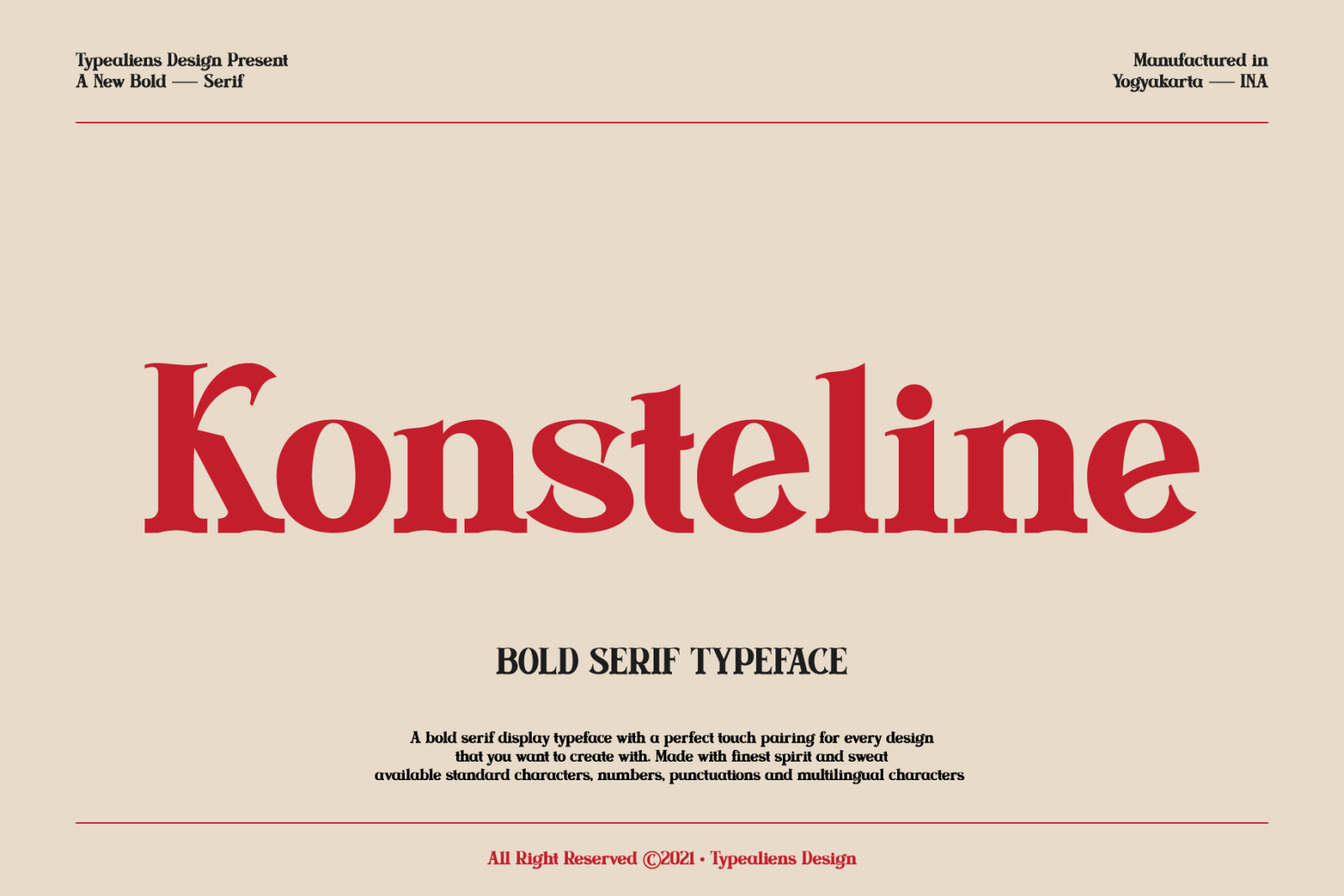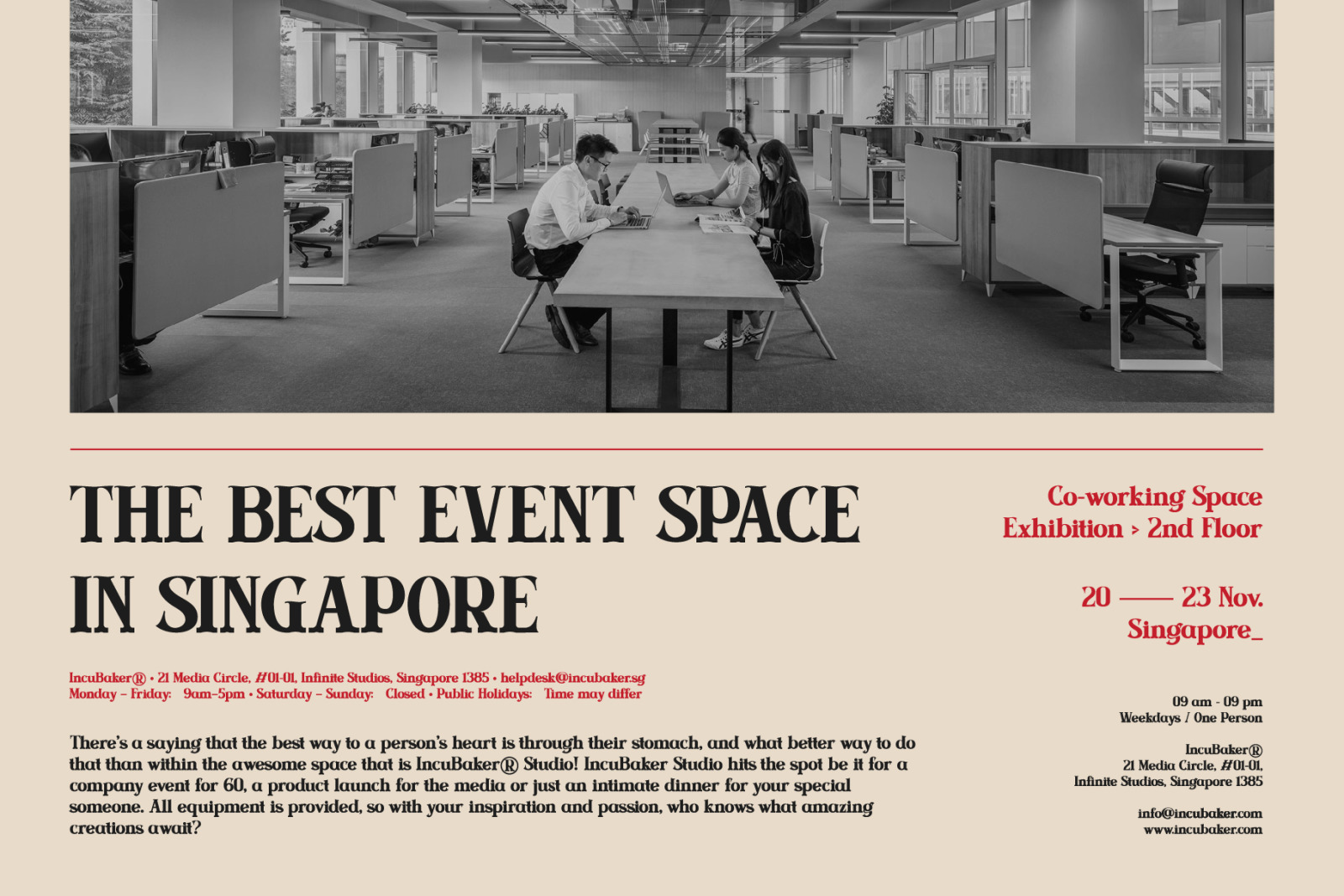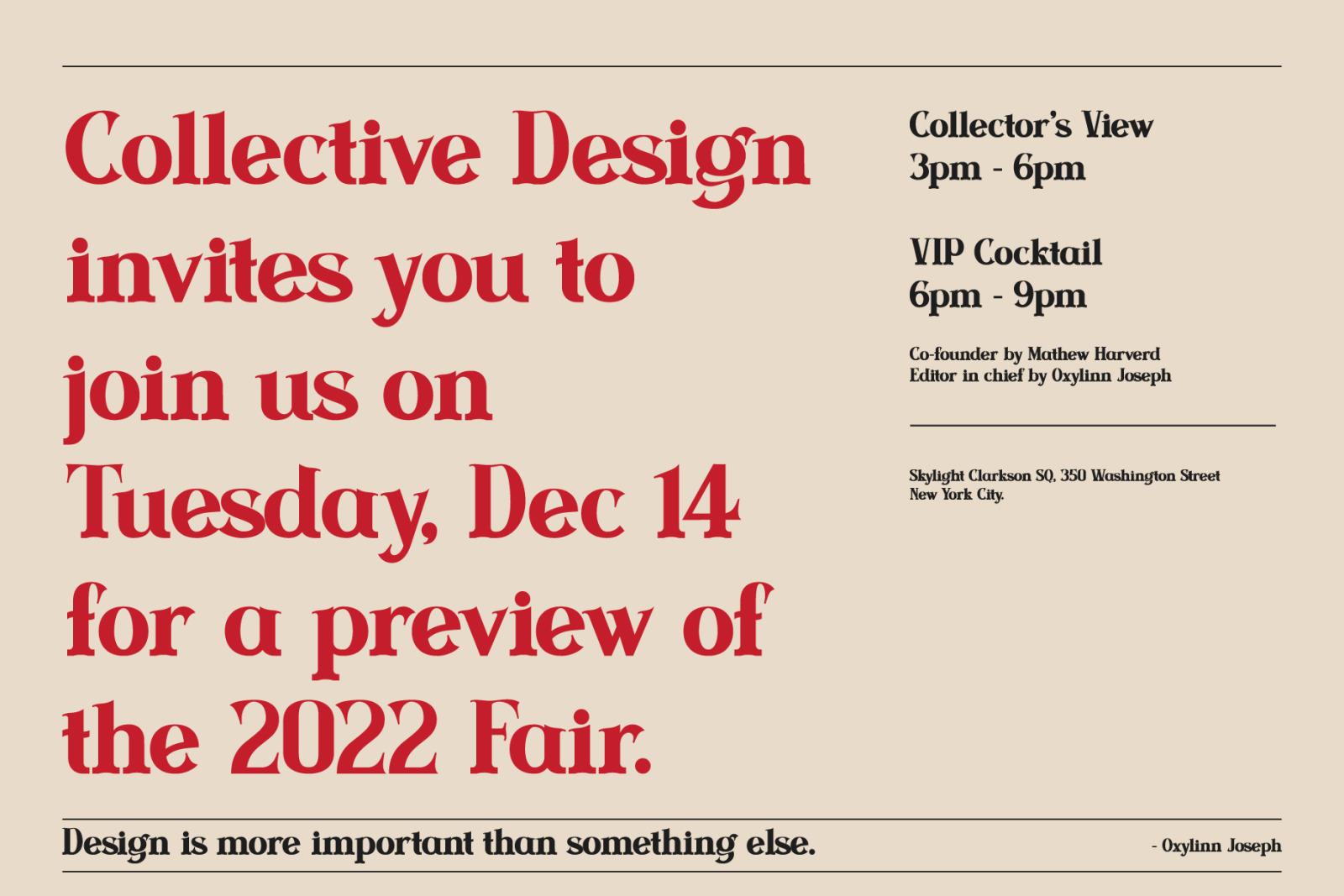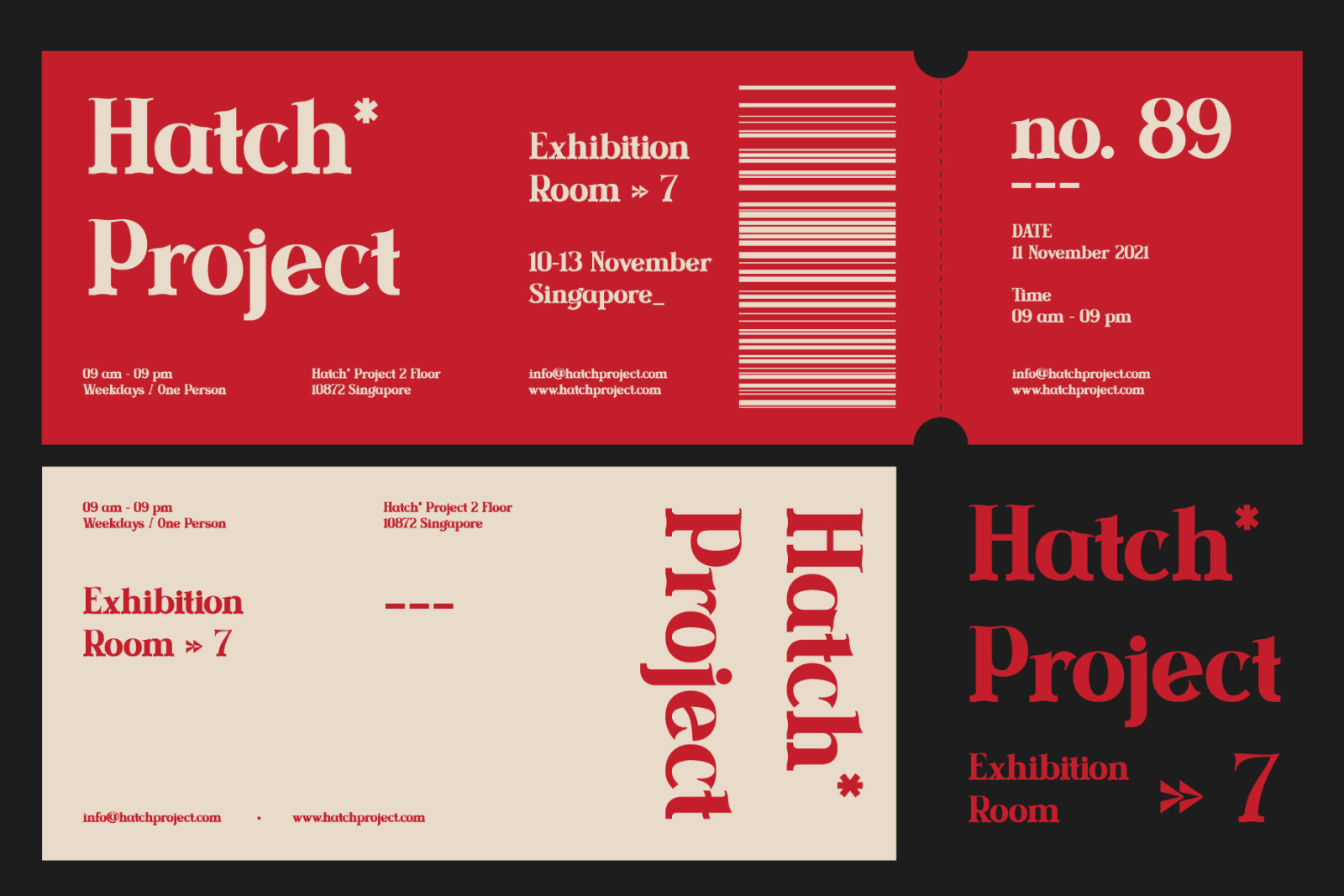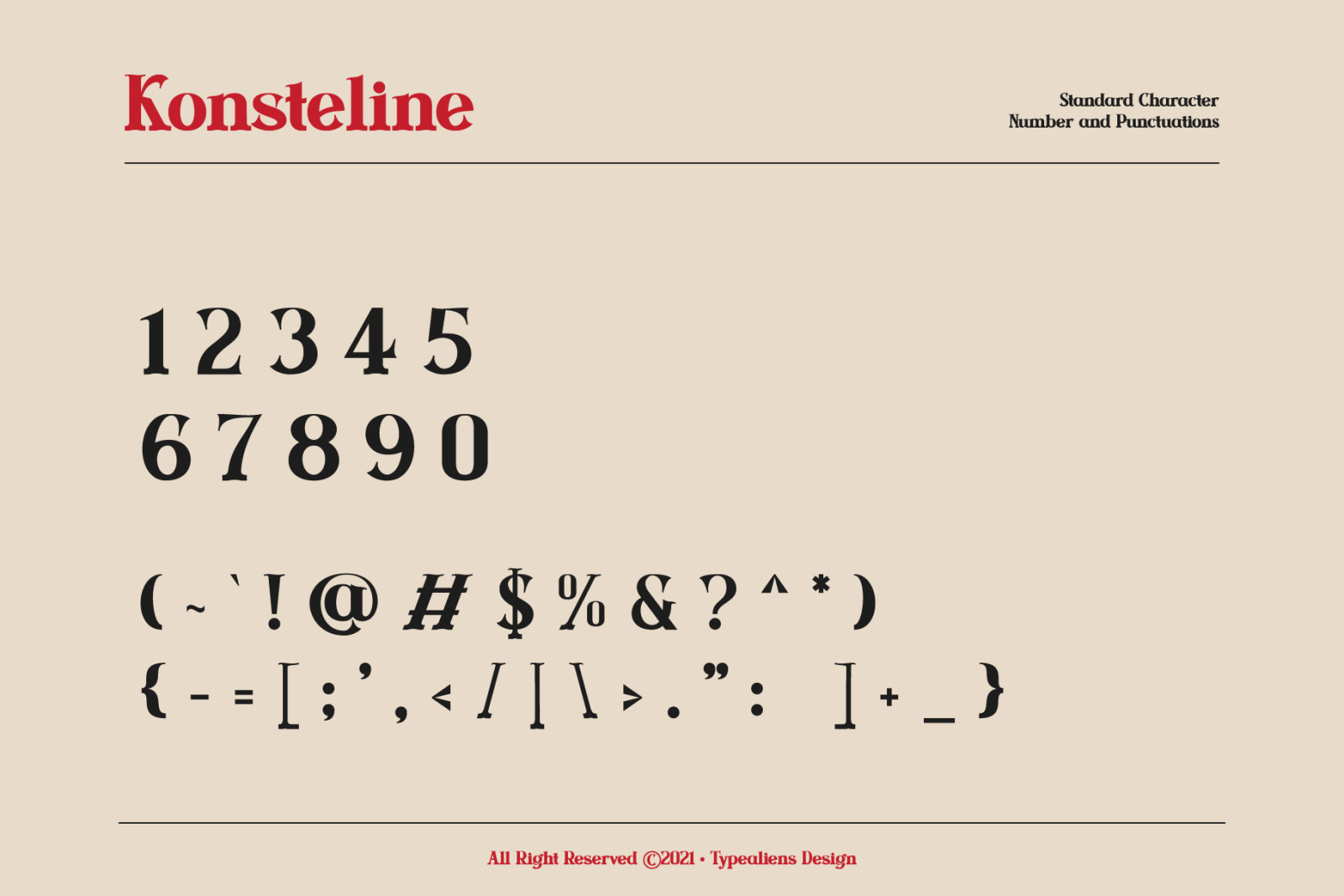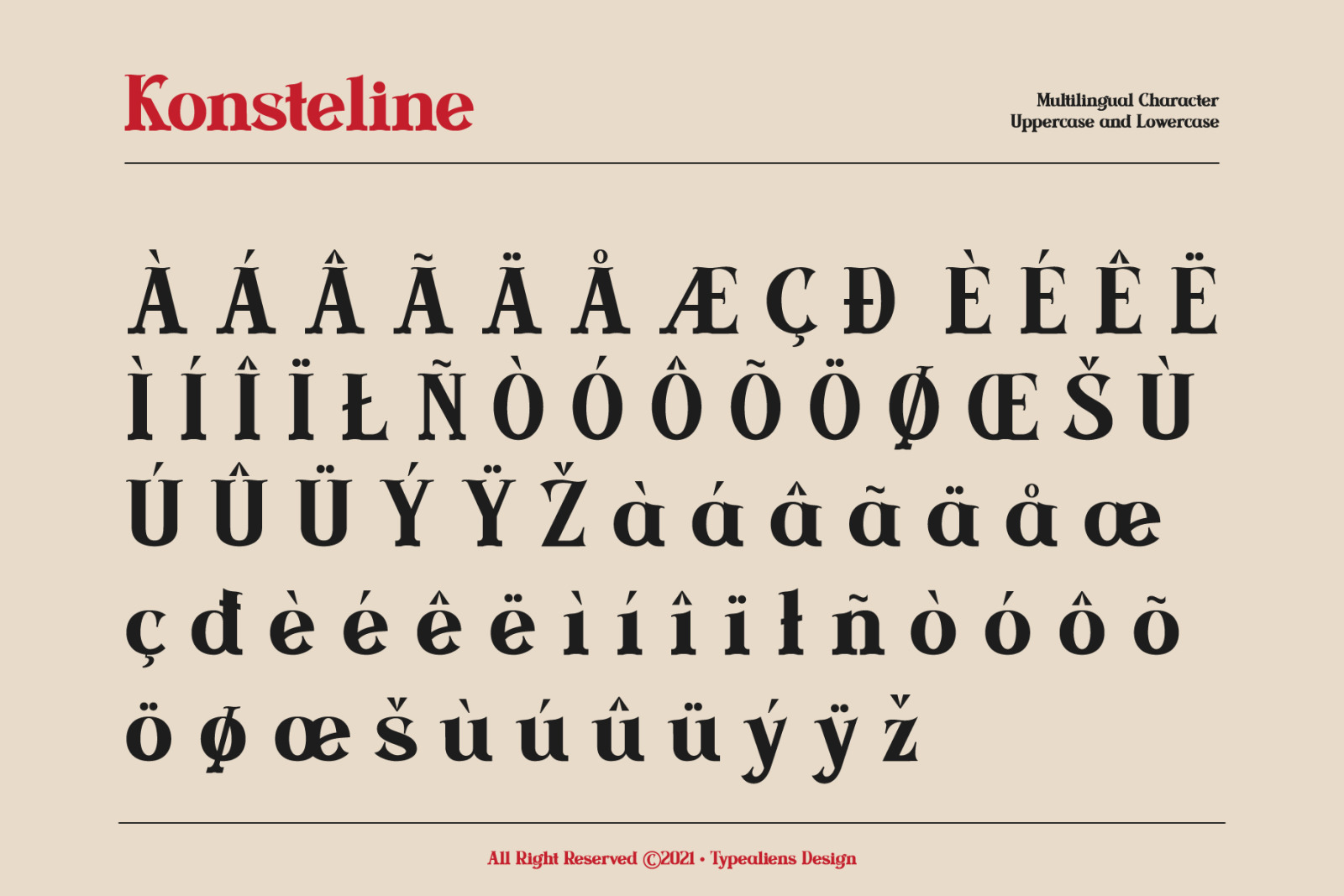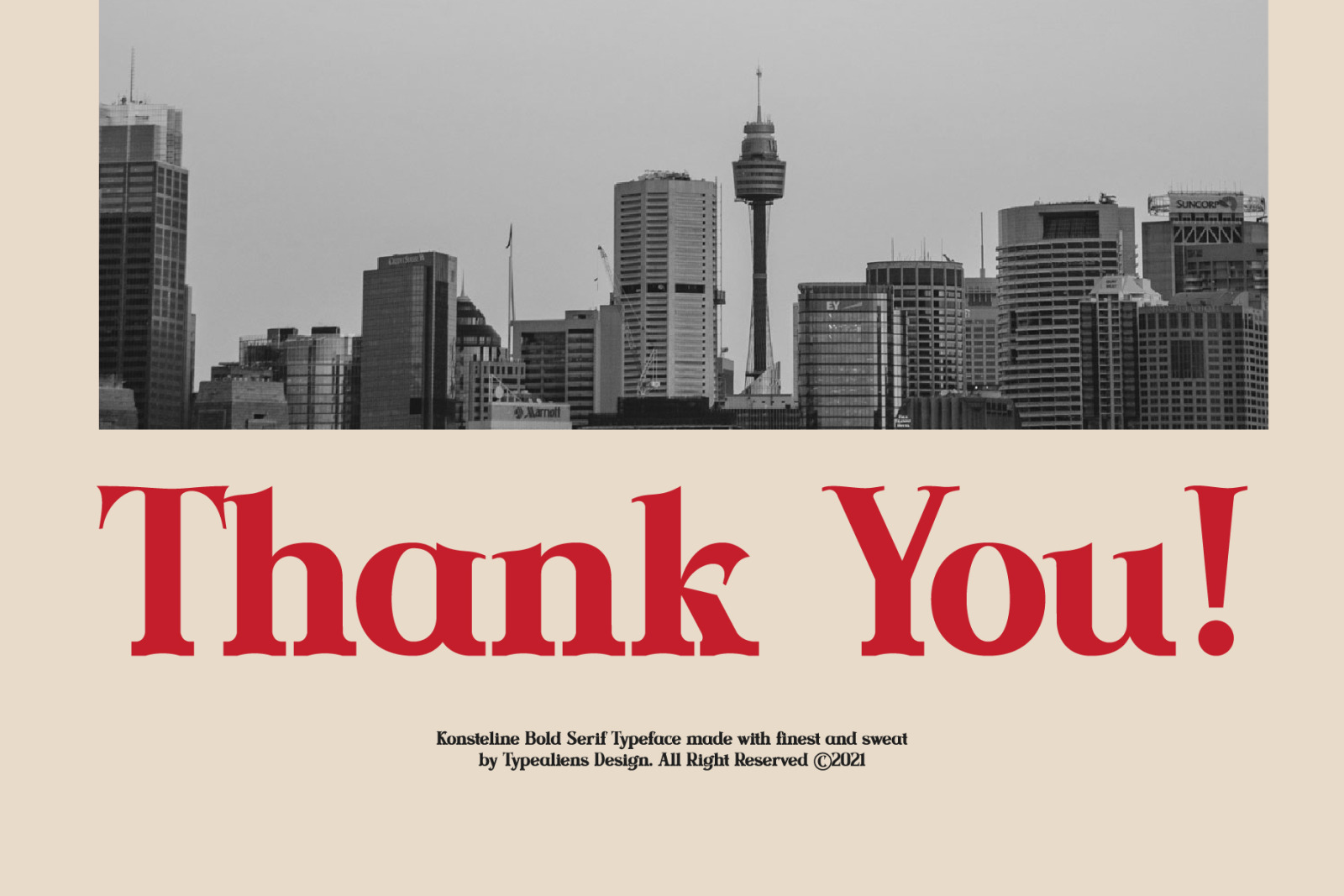
Konsteline Font
KONSTELINE is a serif font that is very unique, with the basic form of a serif font with hooks that have a little ornament in some letters that makes this font different from other serif fonts. Has a vintage feel so it is suitable for classic and retro designs.